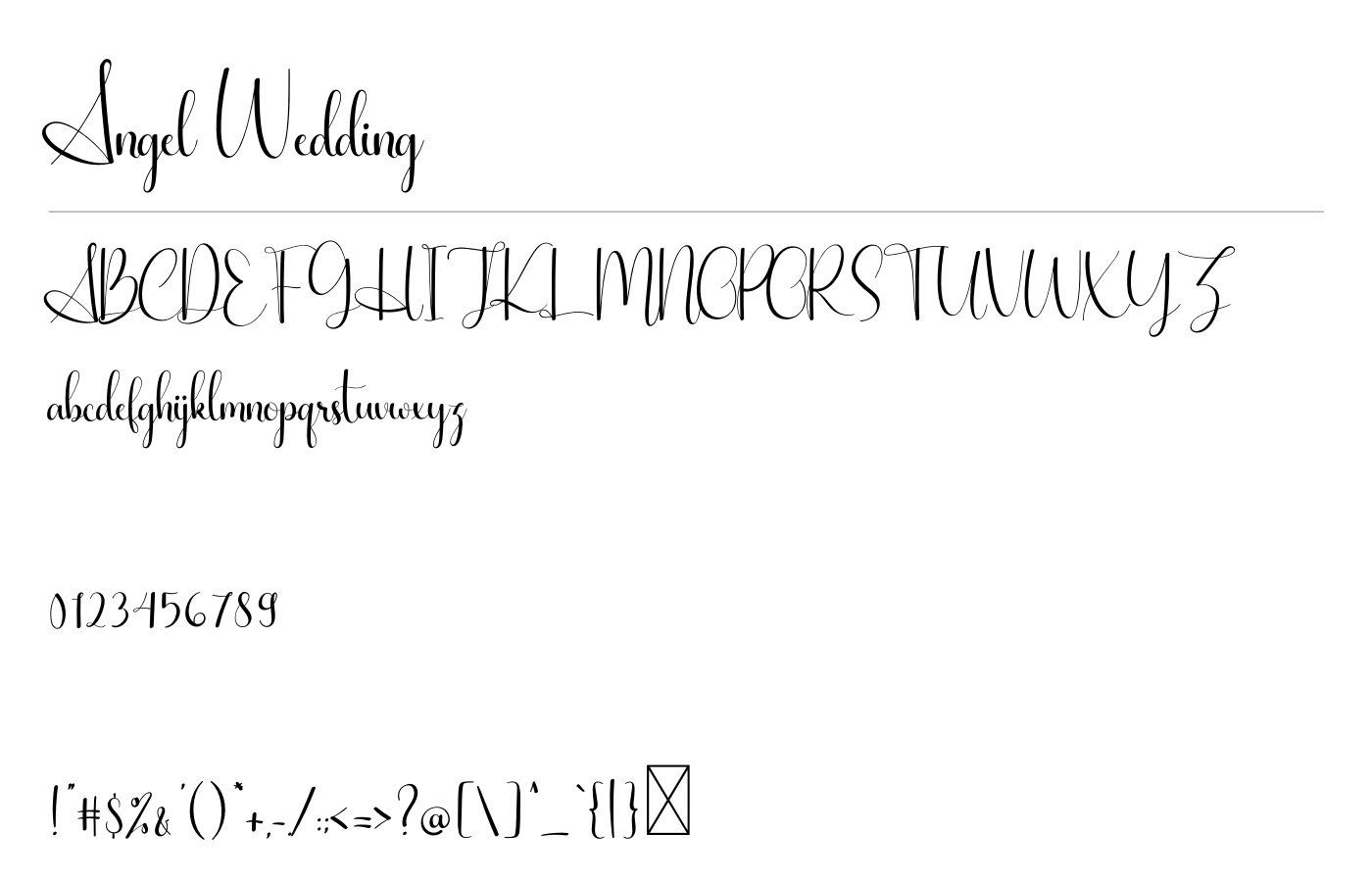
Angel Wedding is an elegant, delicate script font that features tall, slender letterforms with graceful swirls and fine strokes, perfect for romantic or formal designs. Its light weight and flowing style make it ideal for wedding invitations, luxury branding, and sophisticated headlines where a touch of charm and refinement is desired. This font’s airy, artistic appearance adds a whimsical yet polished feel to any design, especially in contexts where beauty and elegance are key.
Angel Wedding Font